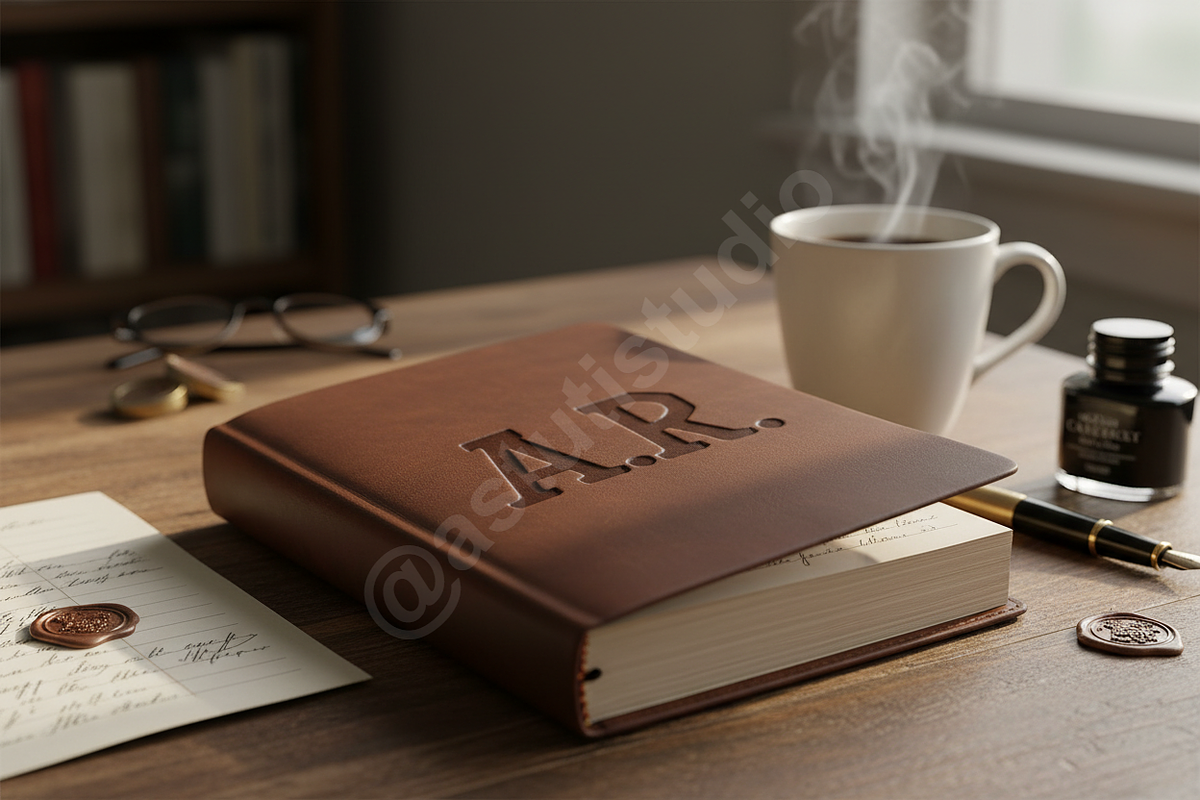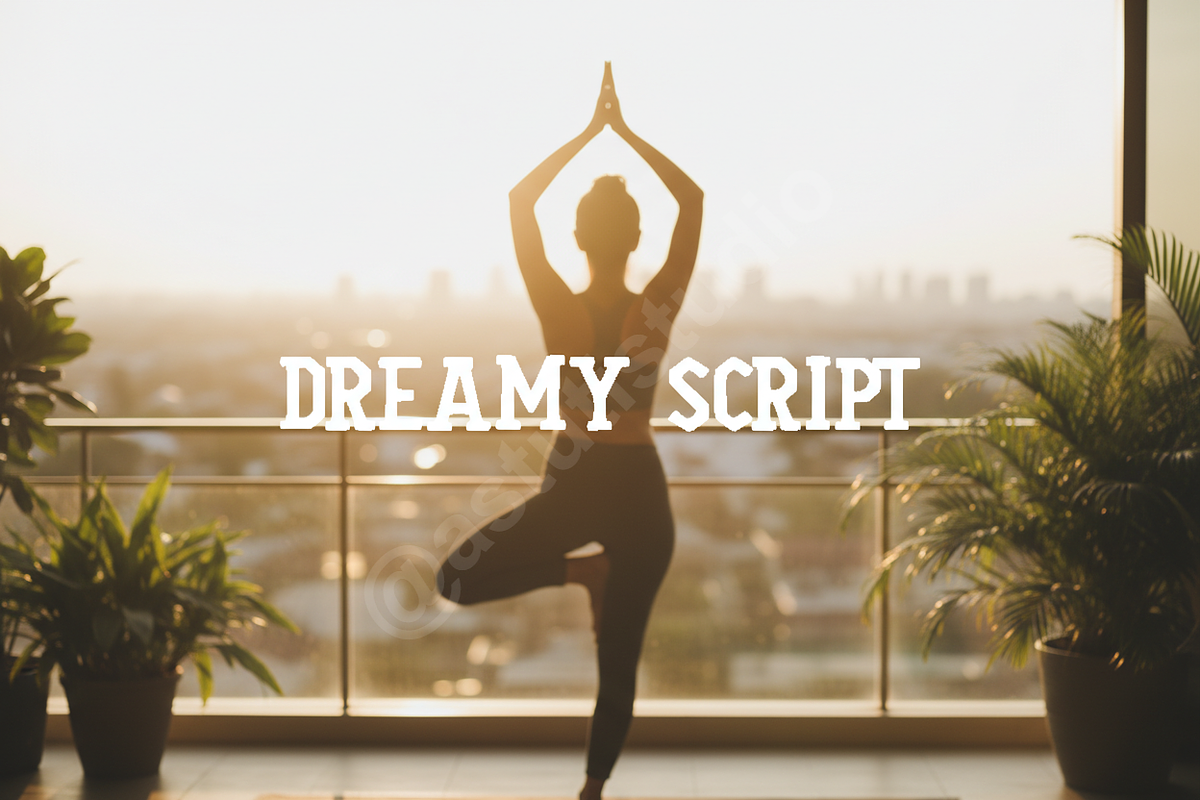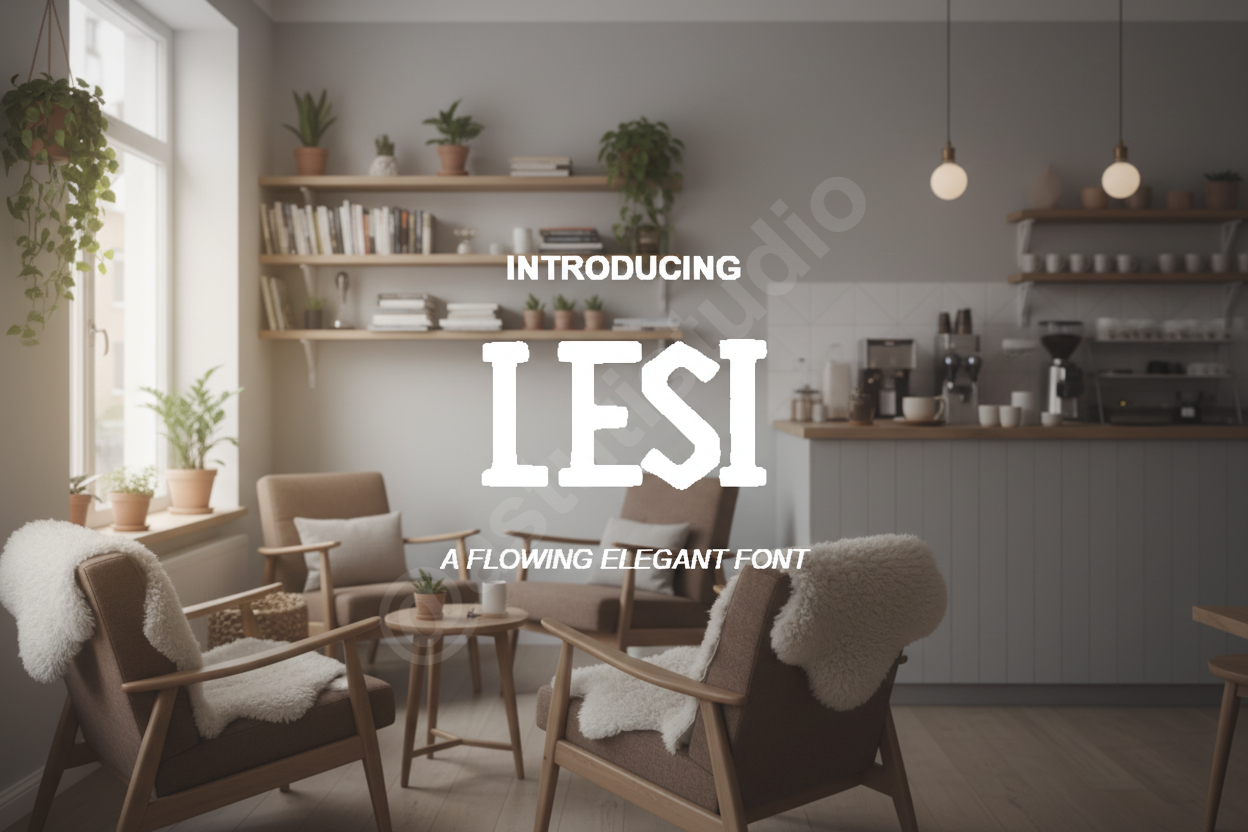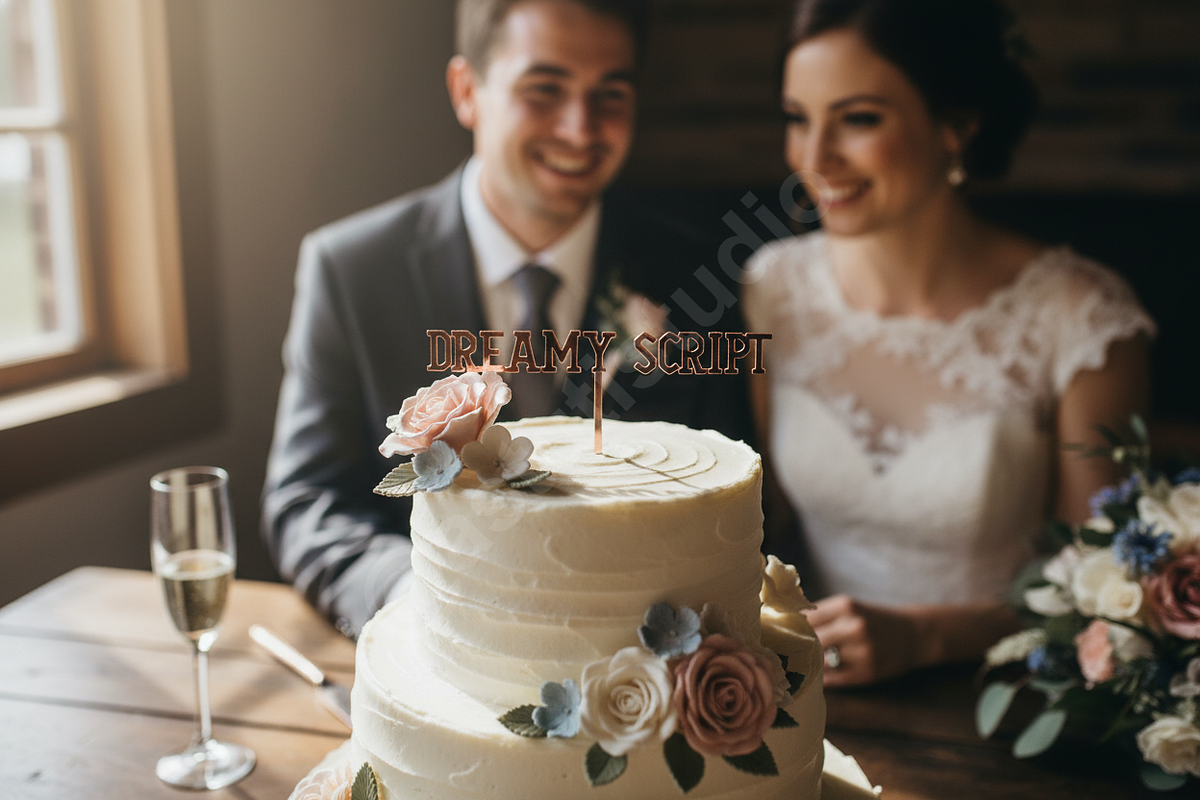
Lesi - Modern Luxury Serif Typeface
INTRODUCTION Lesi is a sophisticated, high-contrast serif typeface meticulously crafted for the modern luxury market. Drawing inspiration from classic editorial typography, Lesi embodies a timeless elegance that elevates any creative project. Its clean lines and refined proportions make it an essential tool for designers seeking a premium aesthetic.
PERFECT FOR
- Luxury Branding and Identity
- High-end Editorial Layouts
- Fashion Magazine Covers
- Minimalist Social Media Content
- Sophisticated Stationery and Wedding Invitations
- Elegant high-contrast stroke weights
- Clean, minimalist serif details
- Extensive set of unique ligatures for custom looks